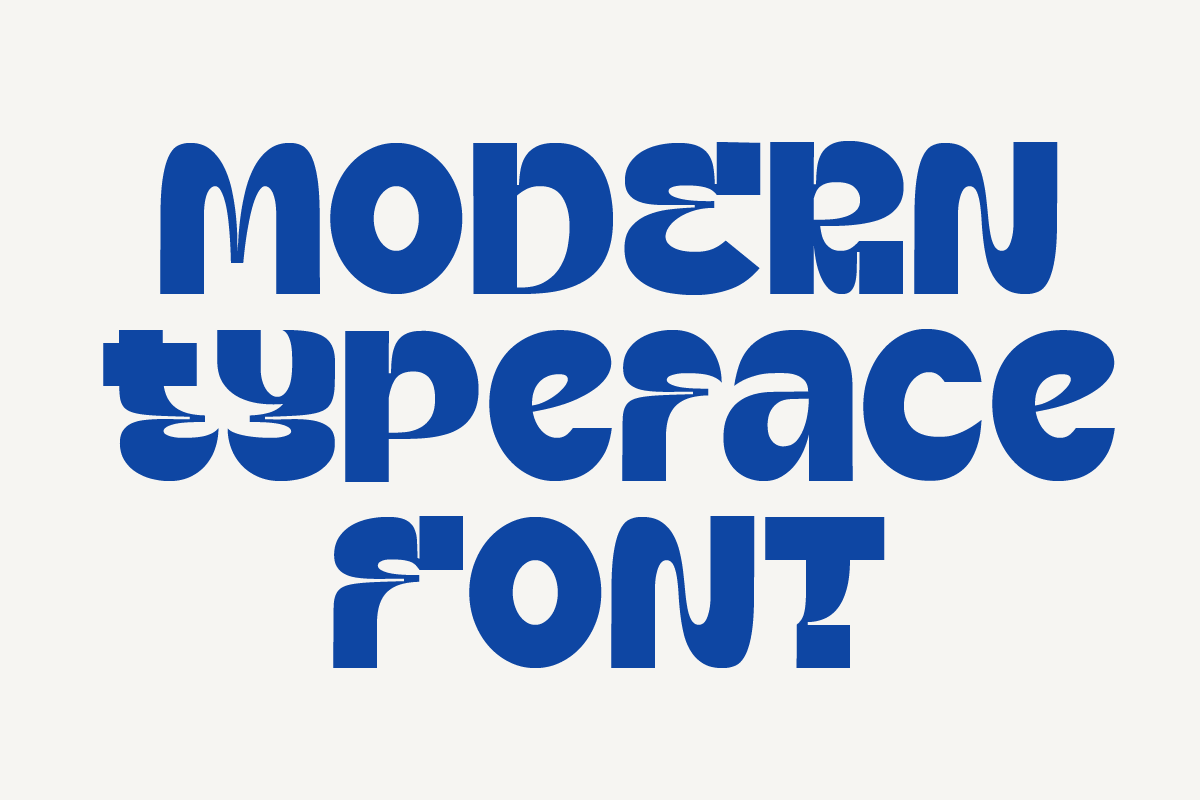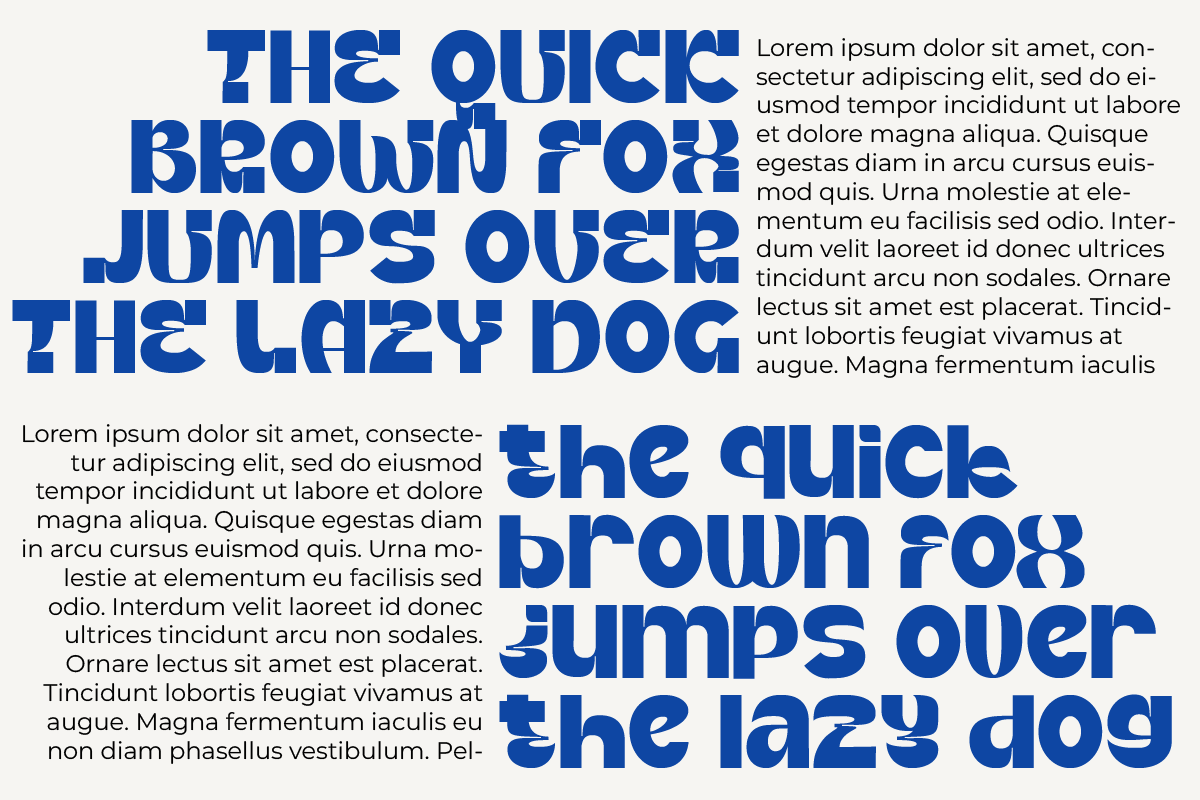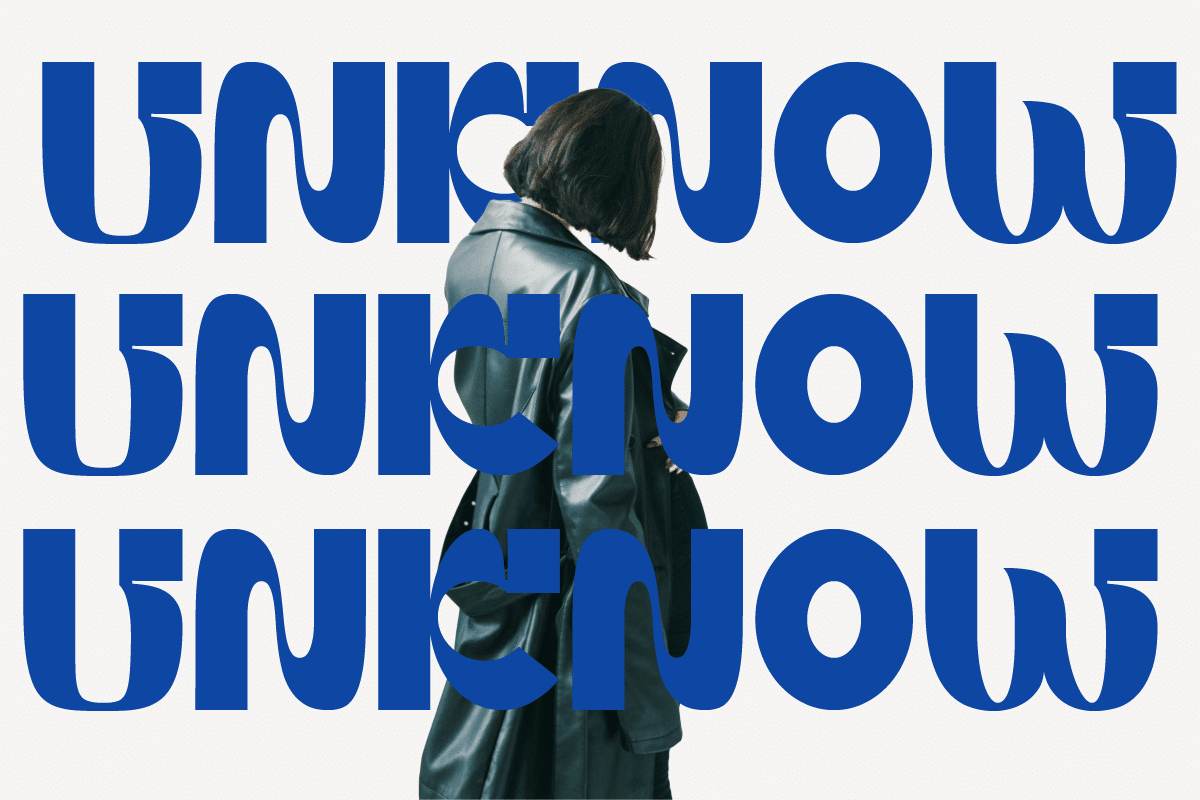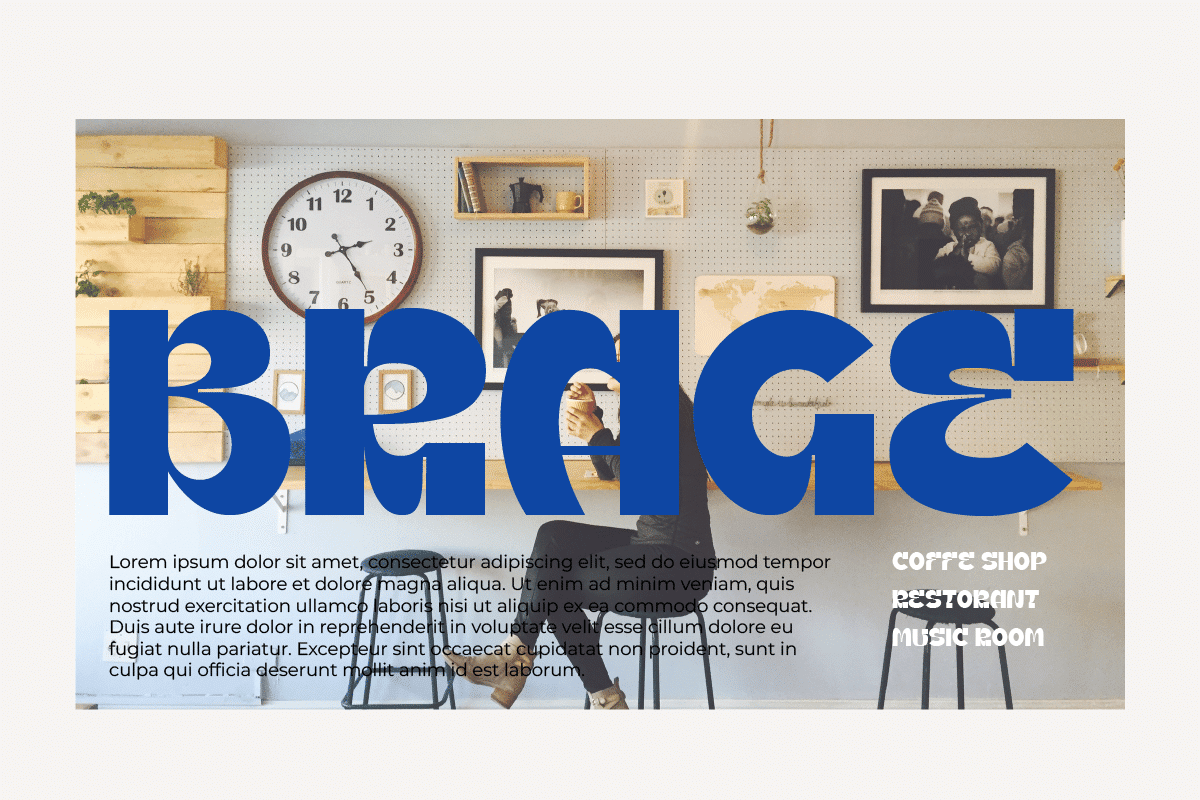
Canre – Modern Display Typeface Font
Canre is a sleek modern display typeface designed to make a strong visual statement while maintaining elegant simplicity. With its clean proportions and minimalistic finishes, Canre is ideal for branding, logos, editorial headlines, packaging, and any design needing clarity with impact. This font supports uppercase & lowercase letters, numerals & punctuation, and offers extended language support — making it versatile across both print and digital formats.
Uppercase & lowercase characters
Numerals & punctuation
Multilingual support (Latin Extended)
Perfect for display use: branding, logos, packaging, headlines